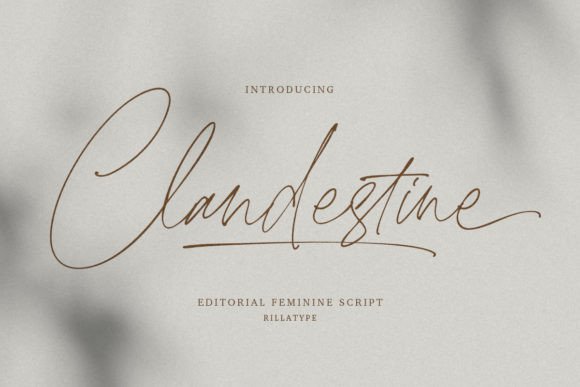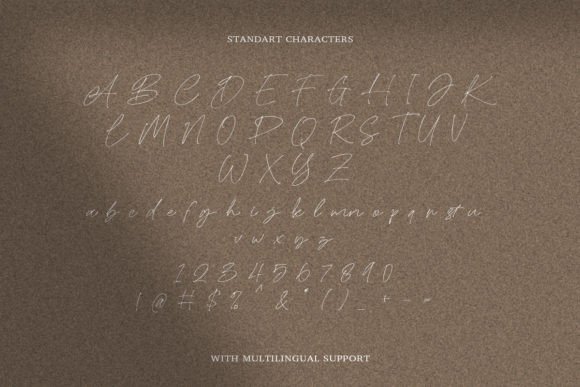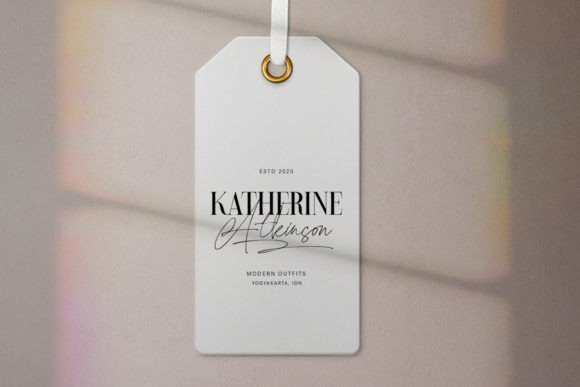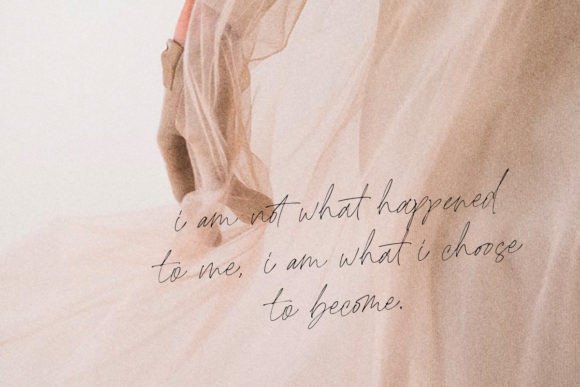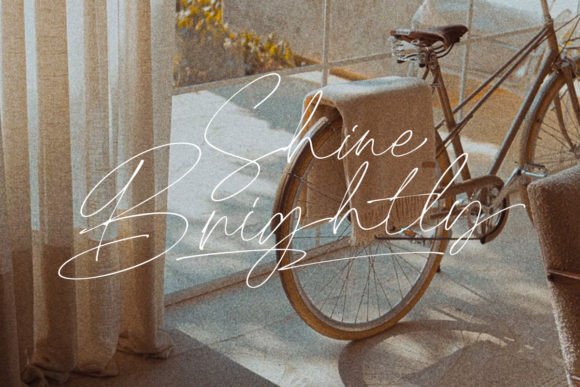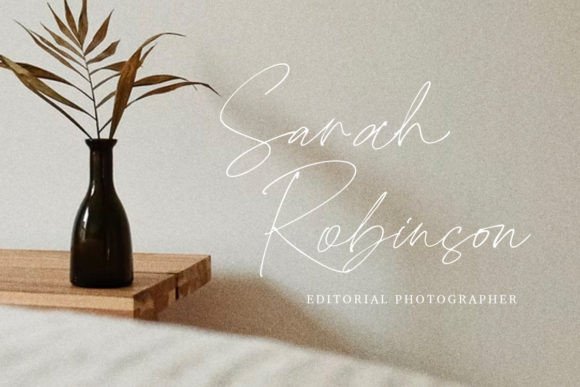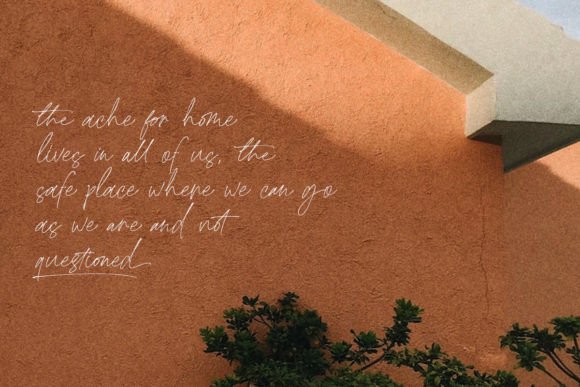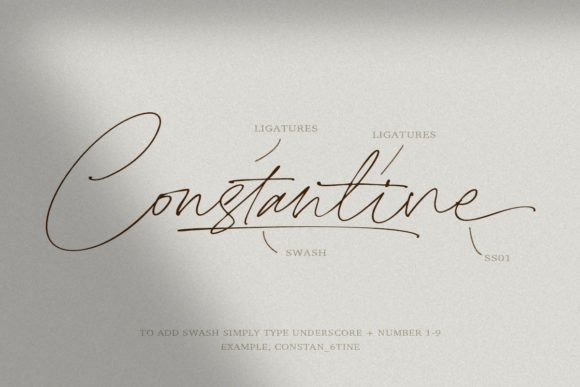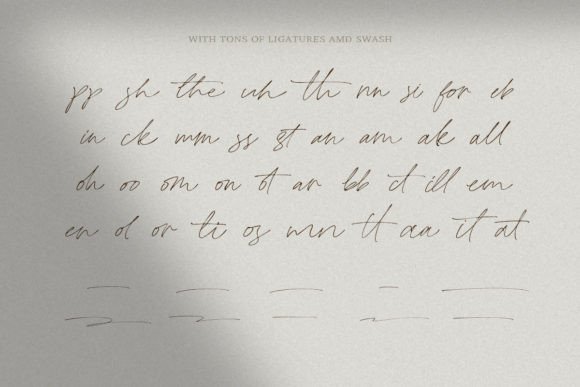
Clandestine Font
“Clandestine” is not just a font; it’s an editorial script typeface designed to infuse a feminine touch into your designs. This font is meticulously crafted, making it perfect for a range of projects such as wedding invitations, magazines, stationery, or any creative endeavor that requires a lovely and romantic vibe.
The charm of “Clandestine” lies in its editorial script style, which adds a touch of elegance and romance to your text. Its graceful strokes and feminine aesthetic make it an ideal choice for projects where you want to convey a sense of beauty and sophistication. Whether used for wedding invitations that evoke romance or magazines that exude elegance, this font delivers.
Imagine “Clandestine” bringing a romantic touch to a wedding invitation, where its editorial script style enhances the overall charm of the event. Picture it in a magazine layout, creating a sophisticated and visually pleasing reading experience. Envision this font used in various creative applications, transforming your ideas into visually captivating works of art.
One of the standout features of “Clandestine” is its versatility. Its editorial script style makes it adaptable to a range of design contexts, allowing you to explore different creative possibilities.
Whether you’re working on wedding invitations, editorial layouts, or any other creative project, “Clandestine” offers an editorial script typeface that elevates your designs with a feminine touch. It’s not just a font; it’s a creative tool that adds an elegant and romantic vibe to your projects. Let “Clandestine” be the editorial script that transforms your creations into visually enchanting and memorable works of art.